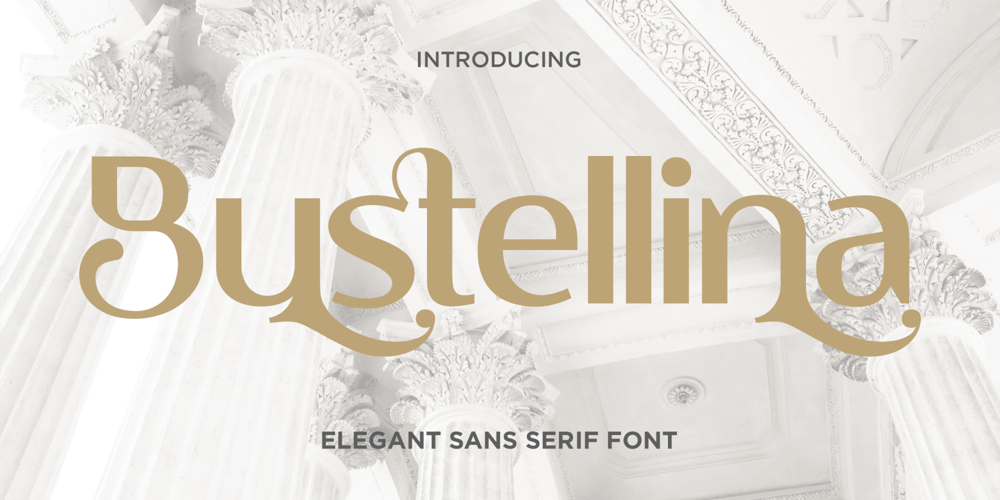
Bustellina Font Family was designed by Heri Imanudin and published by Krafted. Bustellina contains 1 styles and family package options. Seeking to redefine your brand’s image or add an extra essence to your projects? We’ve got you covered.Introducing Bustellina – An Elegant Sans Serif Font.Whether it’s logos, digital assets, or print media, Bustellina leaves an enduring impression. Amplify your brand’s visual identity with the captivating allure of this font. Have fun!